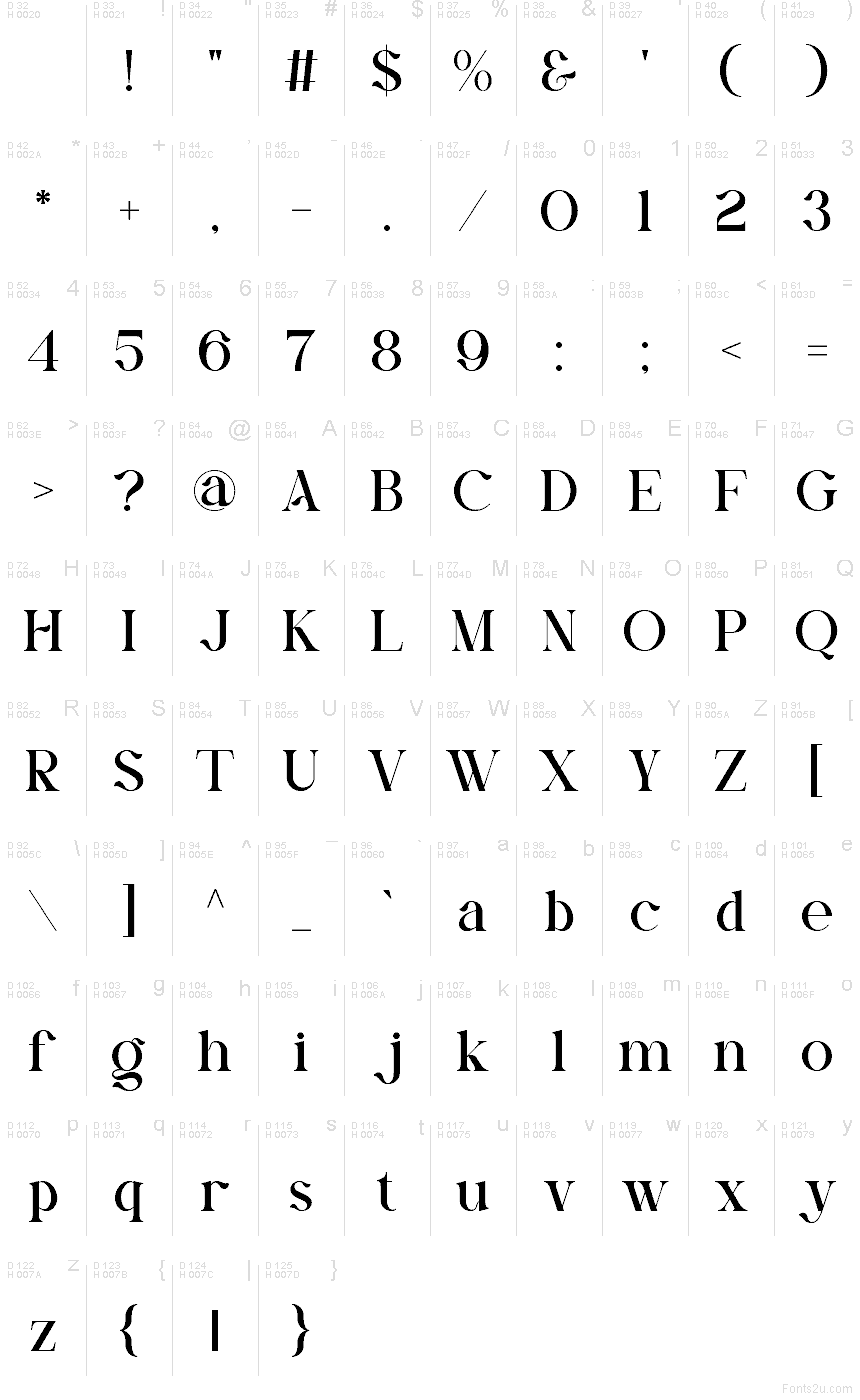
Sageva Regular
Sageva font by ErmediaStudio is a free serif font that turns every word into a statement piece. Its smooth, inky curves flare into dramatic sweeps, while the tighter letterspacing keeps the wordmarks compact and luxurious rather than fussy. The flowing, ribbon-like strokes feel tailored and editorial, giving logos and headlines a sense of couture craftsmanship straight off a glossy magazine spread.
Using Sageva, you get a serif typeface that shines on beauty branding, fashion magazines, perfume packaging, wedding invitations, and boutique logos, as well as hero graphics for social media. This free font loves generous sizes where its sculpted shapes can breathe. For a balanced look, pair Sageva’s bold elegance with a clean geometric sans for body copy or small captions.